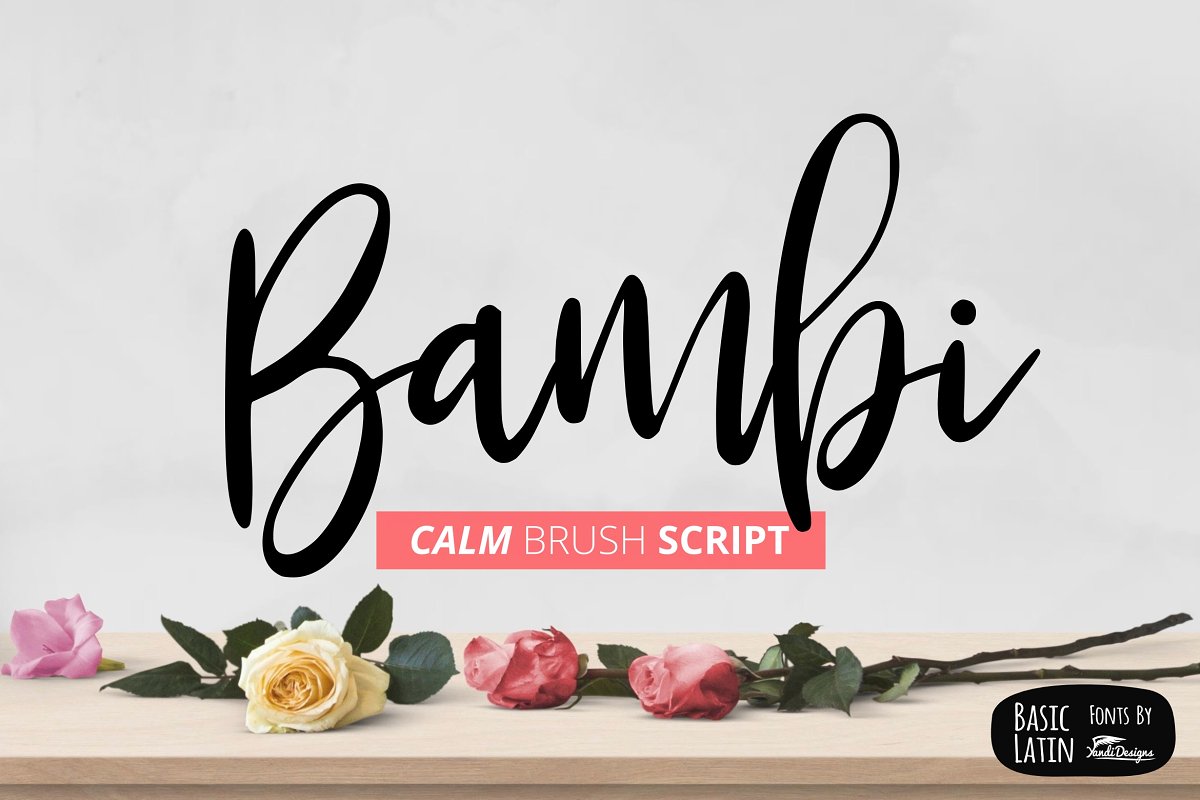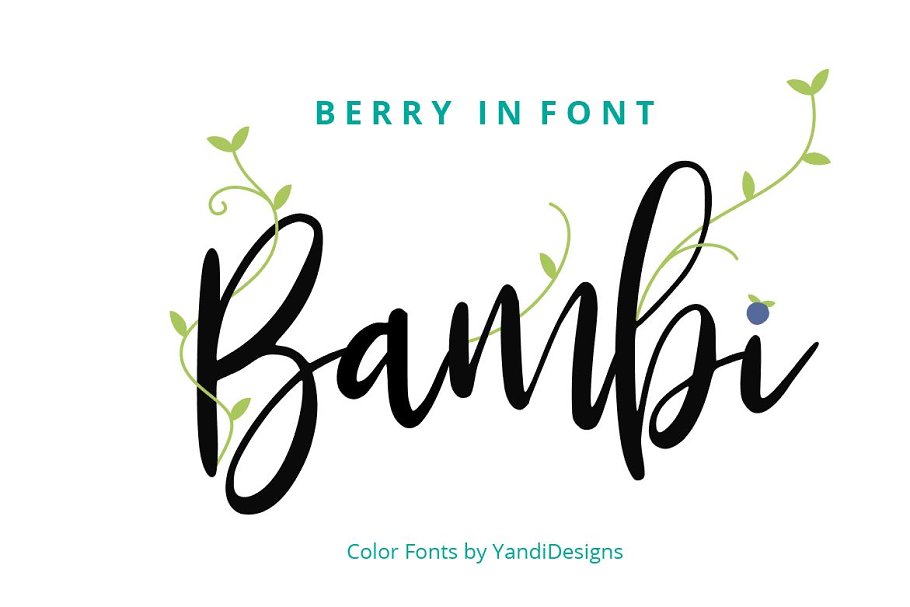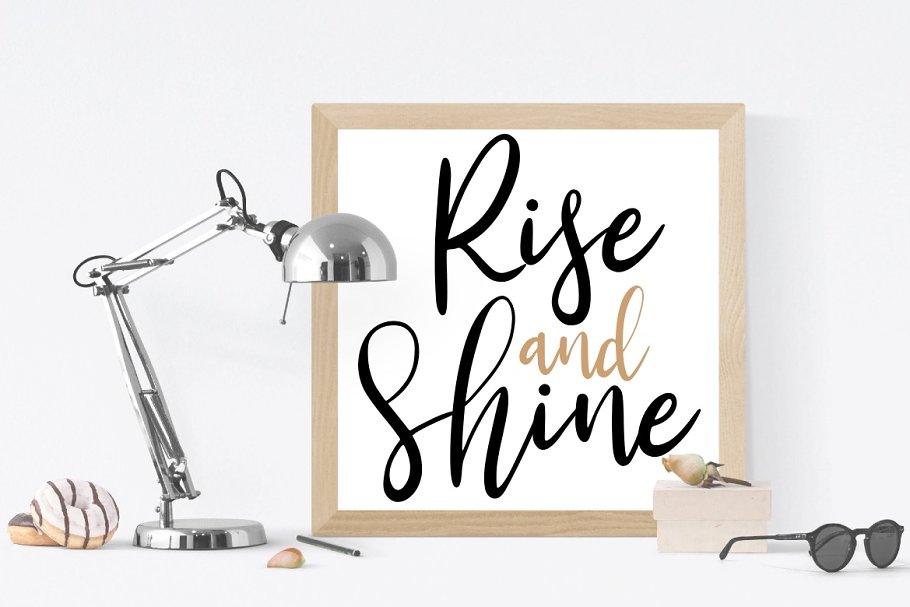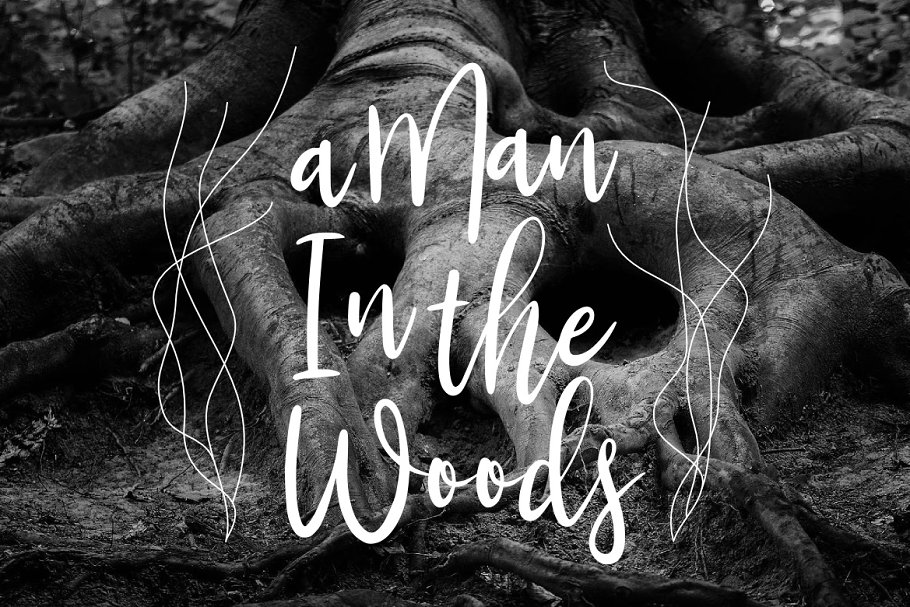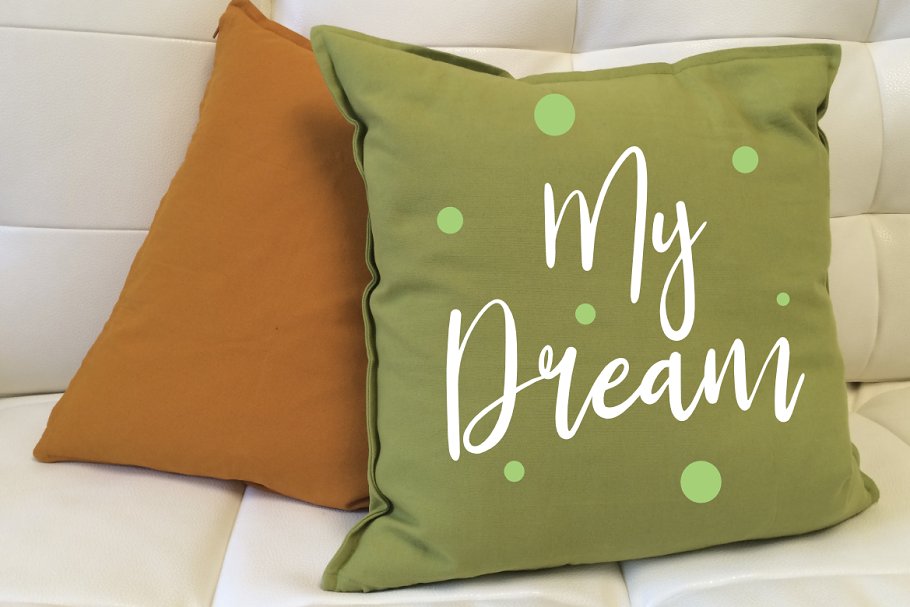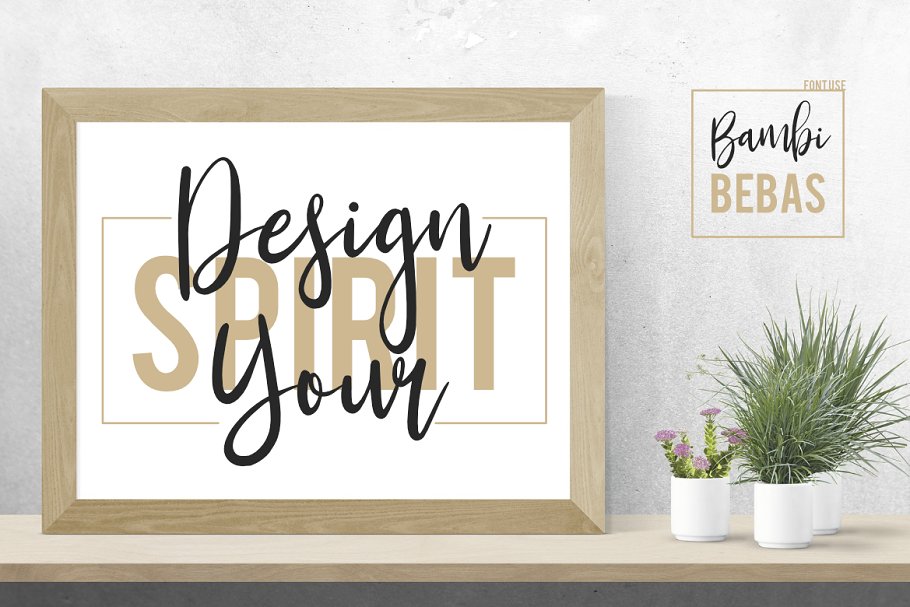
Bambi Font$6 Font Bundles — https://yandidesigns, gumroad, com/l/BundlesModern and calm font , suitable for many project , quotes, logo , doodle, heading , title etc, What you getBambi font , TTF and EOT files format, Woodland dingbat font , TTF and EOT files formatFlower Stick dingbat color font , TTF and EOT file format, Bambi Berry color font